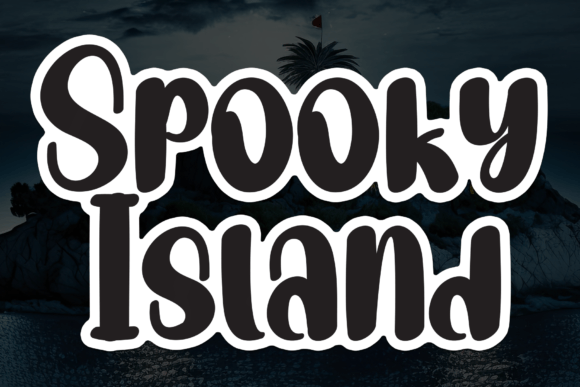
Unleash your creativity with Spooky Island Font, an enchanting script font that invites you to explore a whimsical world of Halloween-themed wonders. Immerse yourself in the magic of this font, meticulously crafted by William Jhardoy, a visionary artist with an eye for detail. Spooky Island Font is not just a collection of letters and symbols; it's a gateway to a realm of imagination, where every stroke of the pen tells a story.
Let Spooky Island Font cast its spell on your Halloween-themed posters, invitations, greeting cards, and countless other design projects. Its playful, hand-lettered style, reminiscent of a child's imagination, brings a touch of charm and whimsy to your creations. Each glyph is meticulously designed to evoke the spirit of Halloween, with intricate details that add depth and personality to your designs.
With Spooky Island Font, you'll find a font that's as versatile as it is captivating. Whether you're crafting invitations for a spine-tingling Halloween party, creating posters for a hair-raising haunted house, or designing t-shirts for trick-or-treaters, Spooky Island Font will add a touch of spooky magic to your projects. Its friendly and inviting nature makes it perfect for both personal and commercial use, ensuring that your designs stand out from the ordinary.
Take a stroll through Spooky Island Font's character set and discover a treasure trove of ghostly glyphs and haunting ligatures. Each letter dances across the page, filled with personality and charm. The font's generous spacing ensures readability, even at small sizes, making it ideal for both print and digital applications.
Spooky Island Font is more than just a font; it's a gateway to a world of imagination, where creativity thrives and magic comes alive. Join the growing community of designers, artists, and Halloween enthusiasts who have embraced Spooky Island Font to bring their creations to life. As you embark on your design journey, let Spooky Island Font be your guide, leading you through a labyrinth of creativity and wonder.